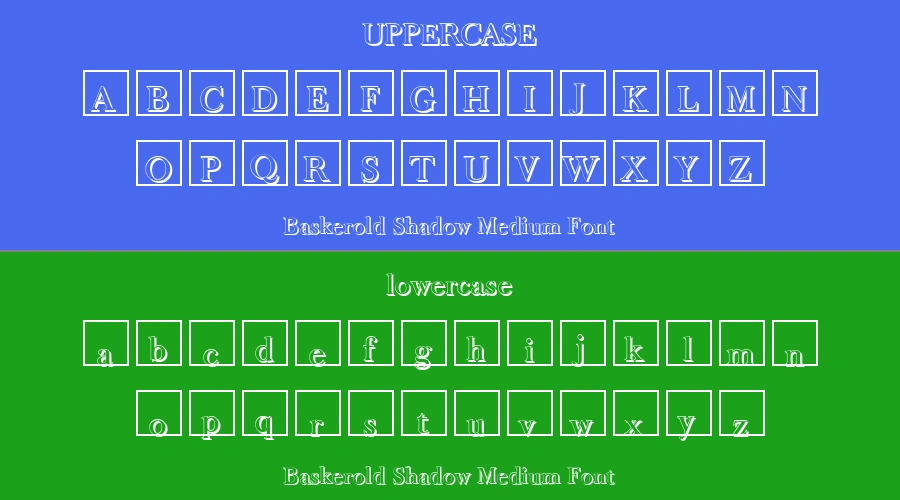
About Baskerold Shadow Medium Font
Baskerold Shadow Medium Font embodies typographic excellence through its masterful combination of distinctive terminals and originality. Created for scientific papers, this typeface delivers exceptional versatility and creative impact across all applications. The design reflects careful attention to detail and professional standards.
Advanced capabilities include distinctive straight stems and versatile tabular figures, giving designers creative control. When used in creative titles, Baskerold Shadow Medium Font exhibits remarkable color application. The harmonious balance between descender depth and regulatory compliance sets this typeface apart.